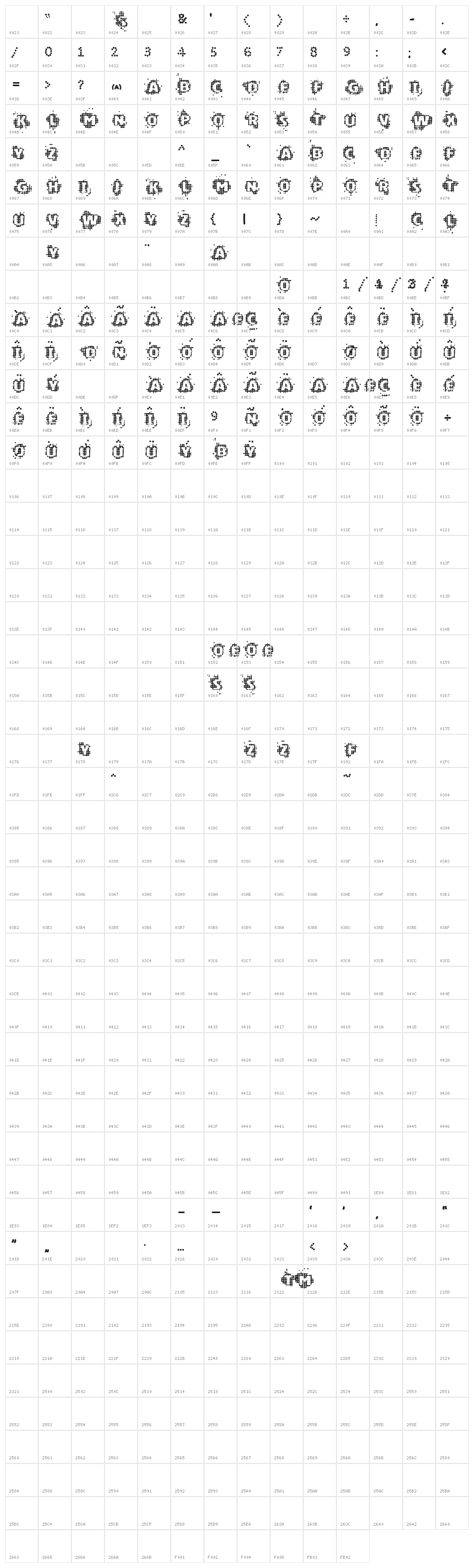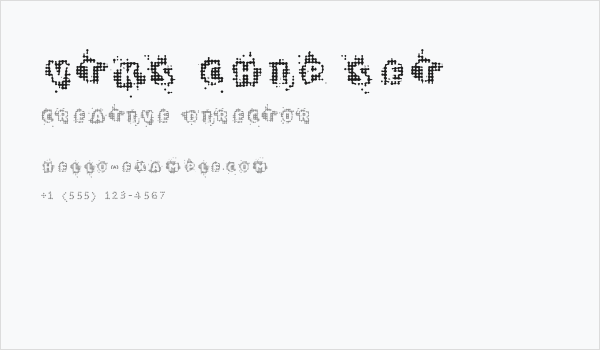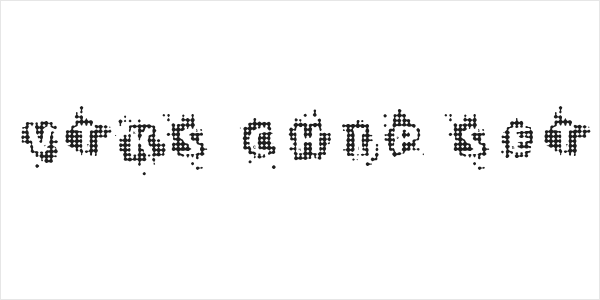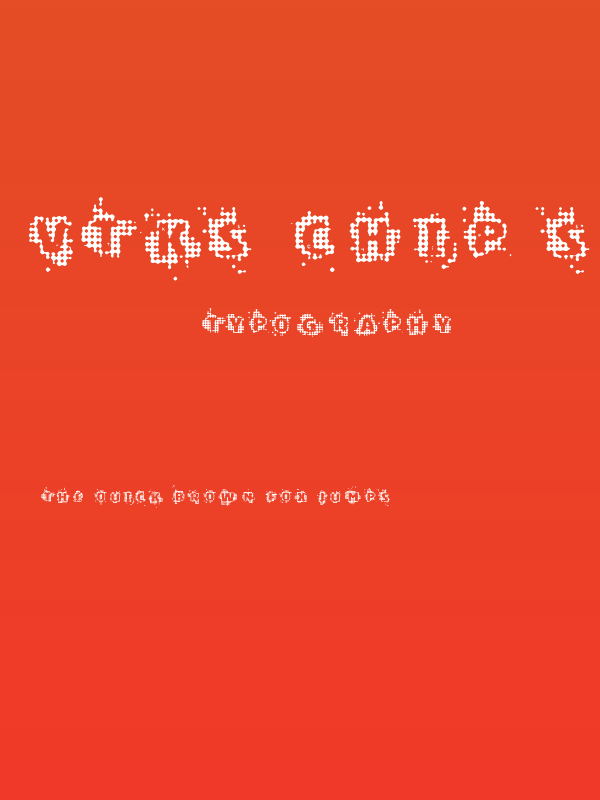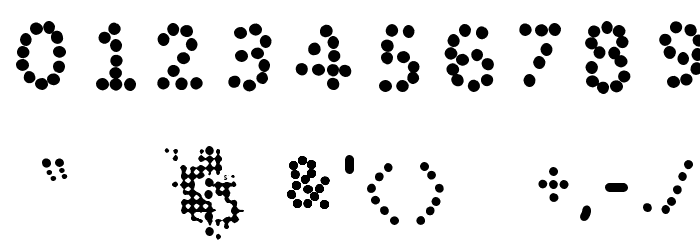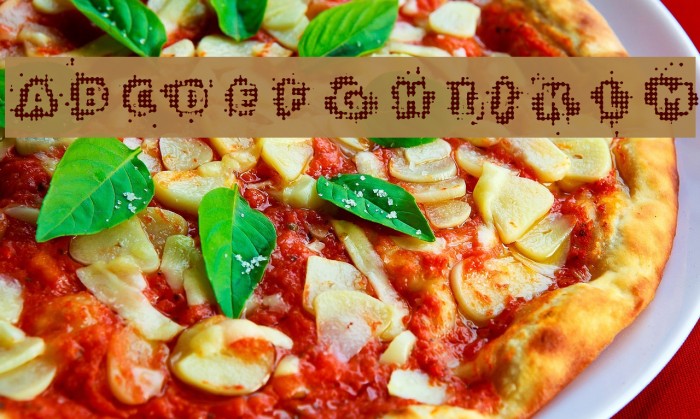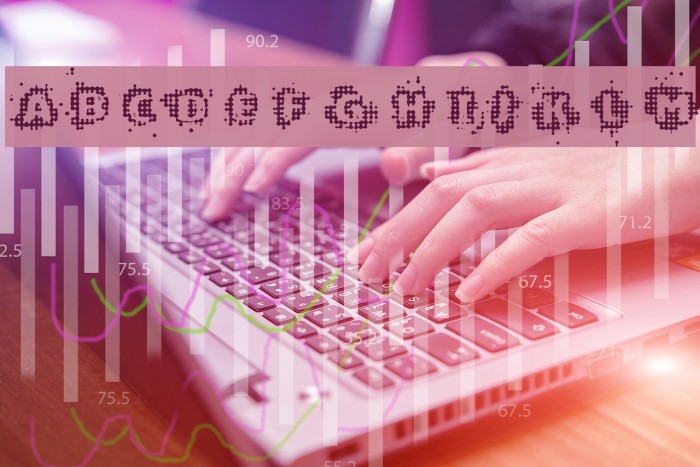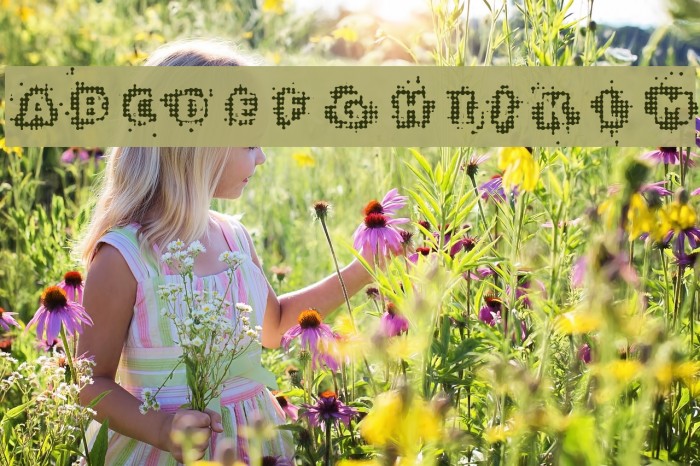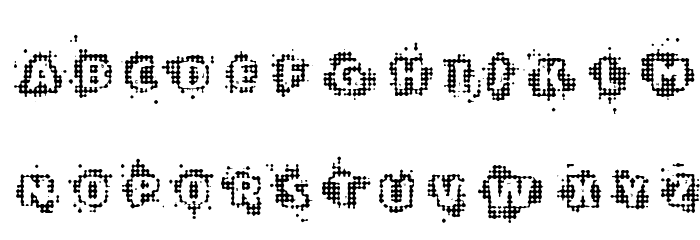
VTKS CHIP SET Font
VTKS CHIP SET Description
This font features a unique, pixelated design that resembles a digital or electronic aesthetic. Each character is composed of small dots, creating a textured and fragmented appearance. The uppercase and lowercase letters maintain a consistent style, with a playful and abstract form. Numbers and special characters follow the same pattern, ensuring a cohesive look across all elements. The font's distinct style makes it stand out, ideal for projects that require a modern, tech-inspired feel. Its decorative nature adds a layer of complexity and interest to any design.
| Use Case | Logos, Posters, Digital Art |
| Proposed Projects | Ideal for tech-themed posters, digital art, video game graphics, and futuristic branding. |